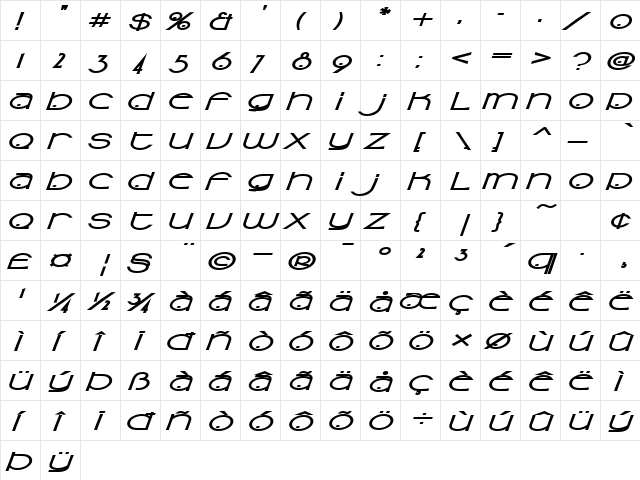
Sonic Superpowers Regular
Design Context for Sonic Superpowers Typeface
Sonic Superpowers brings high-energy athletic personality to the page — its confident, muscular forms are built for impact.
A natural choice for gym brands, fantasy sports, jersey lettering, and action-driven headlines.
Font Pairing: Use alongside a condensed or geometric sans for supporting copy — keep the pairing bold, functional, and free of ornament.
Pro Tip: Use Sonic Superpowers in all-caps headlines where its athletic energy can fully express itself. Pair with a solid, simple sans for supporting text.